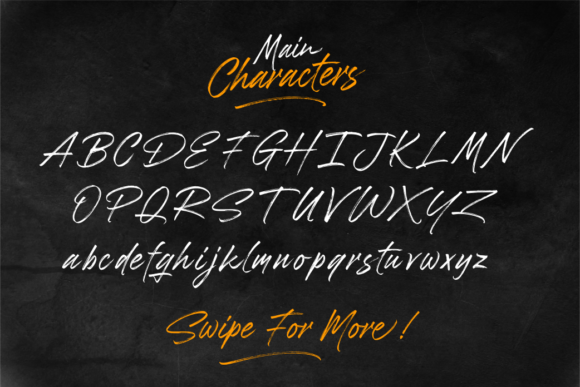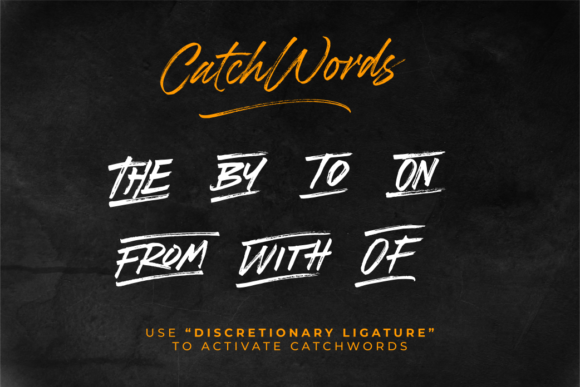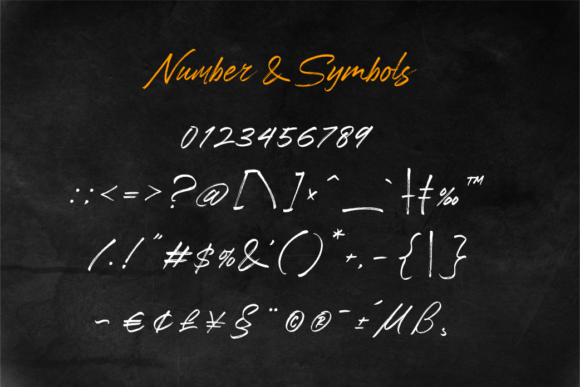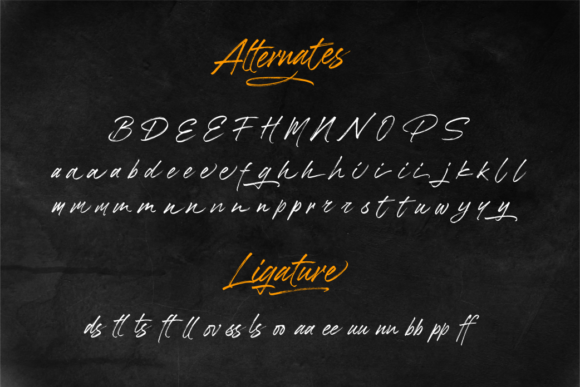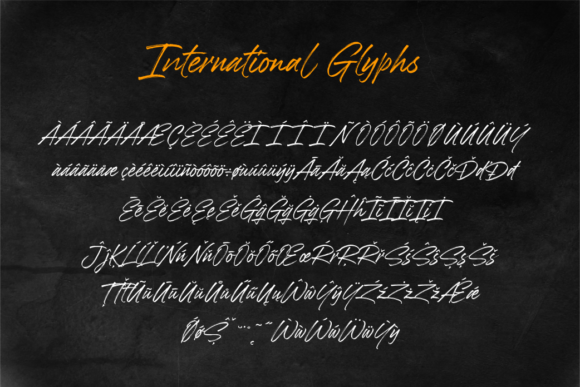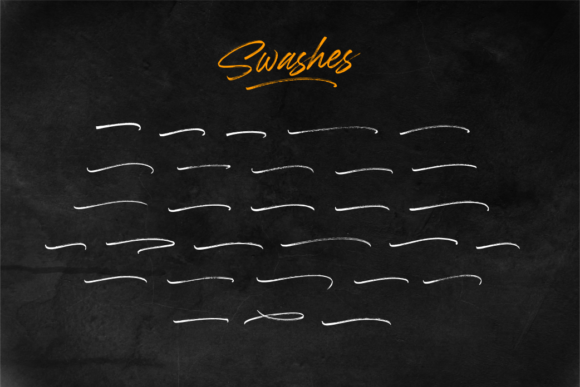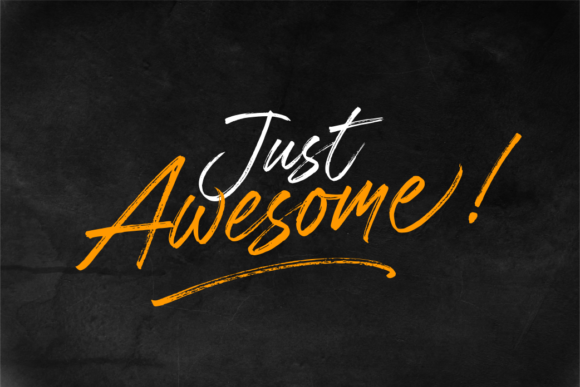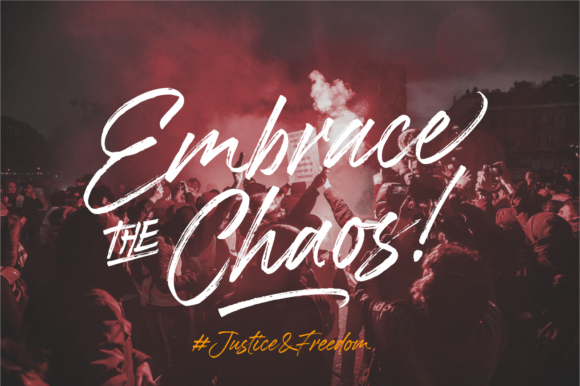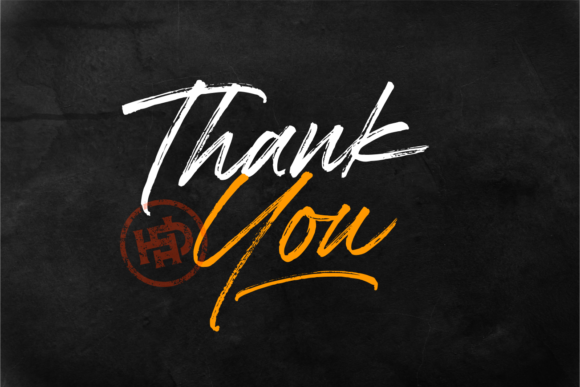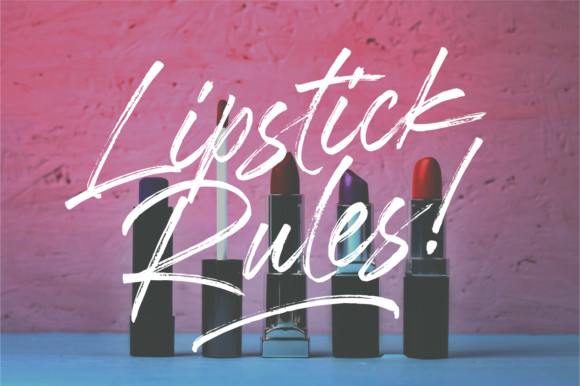
Brushwell Font
About Brushwell Font
Brushwell is a dynamic and playful script with a brushed look. Use it to add a splash of authenticity to any design project!